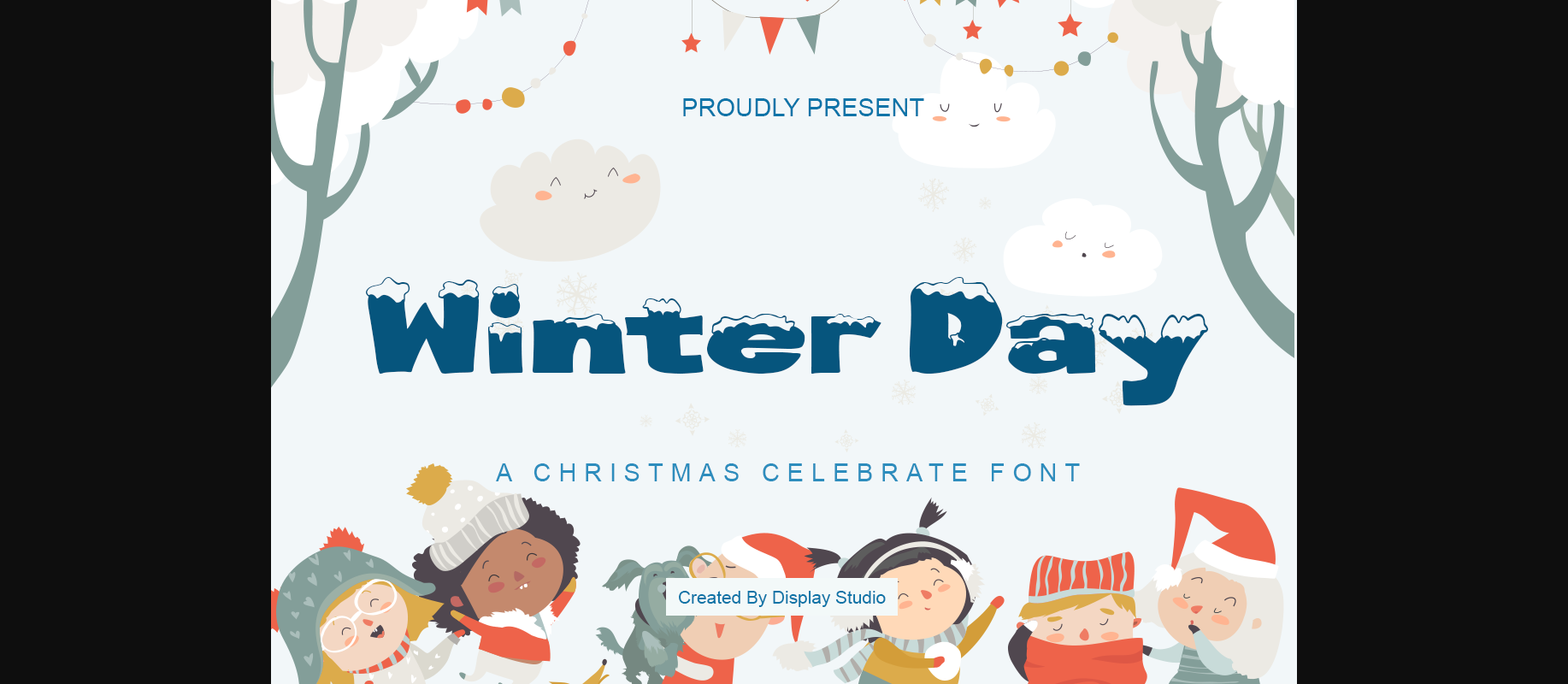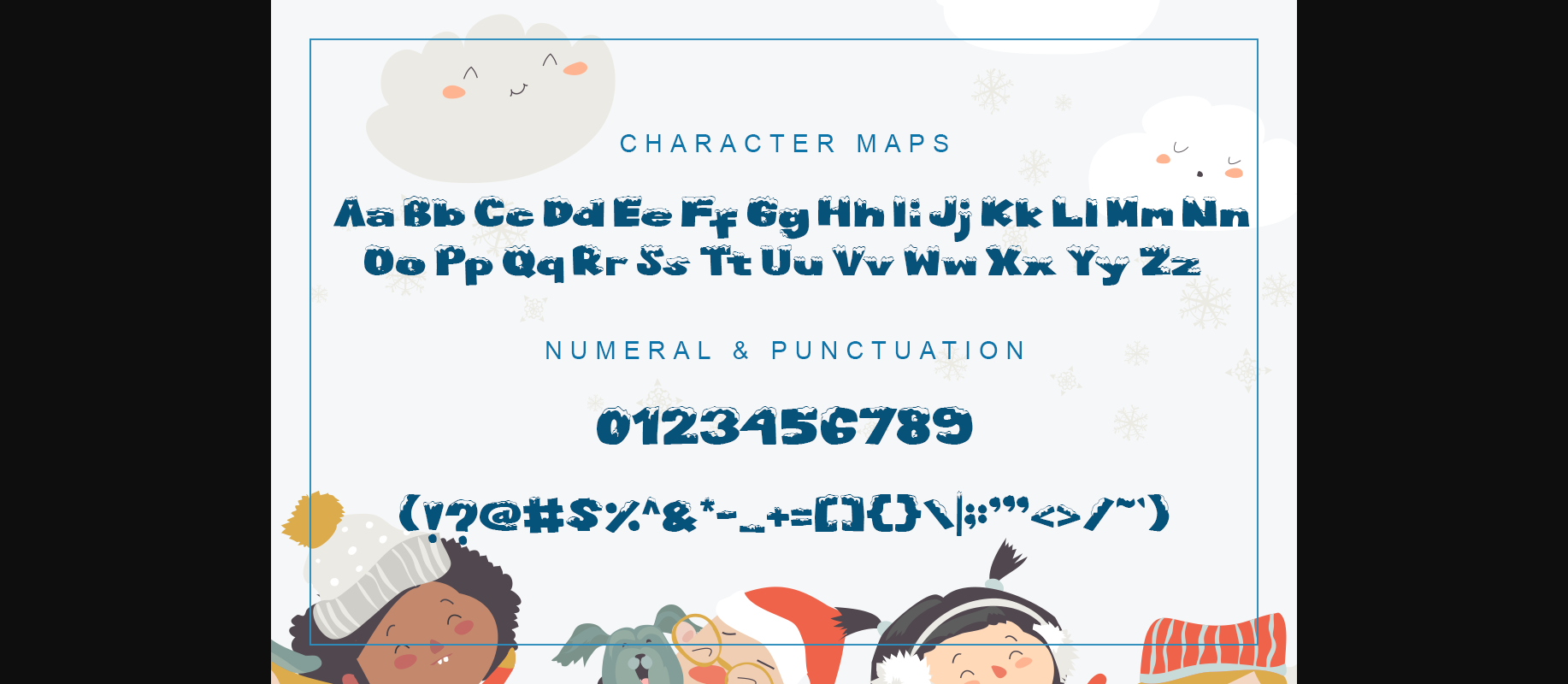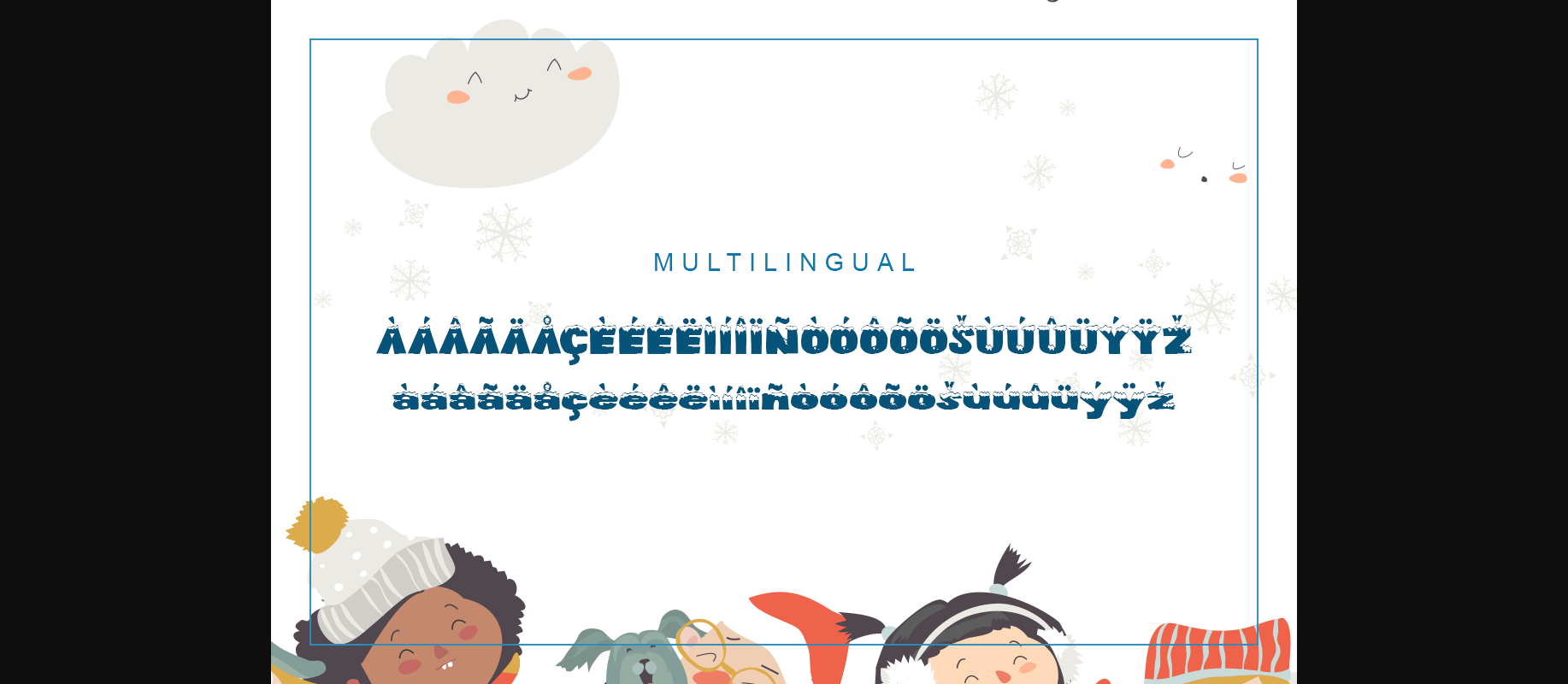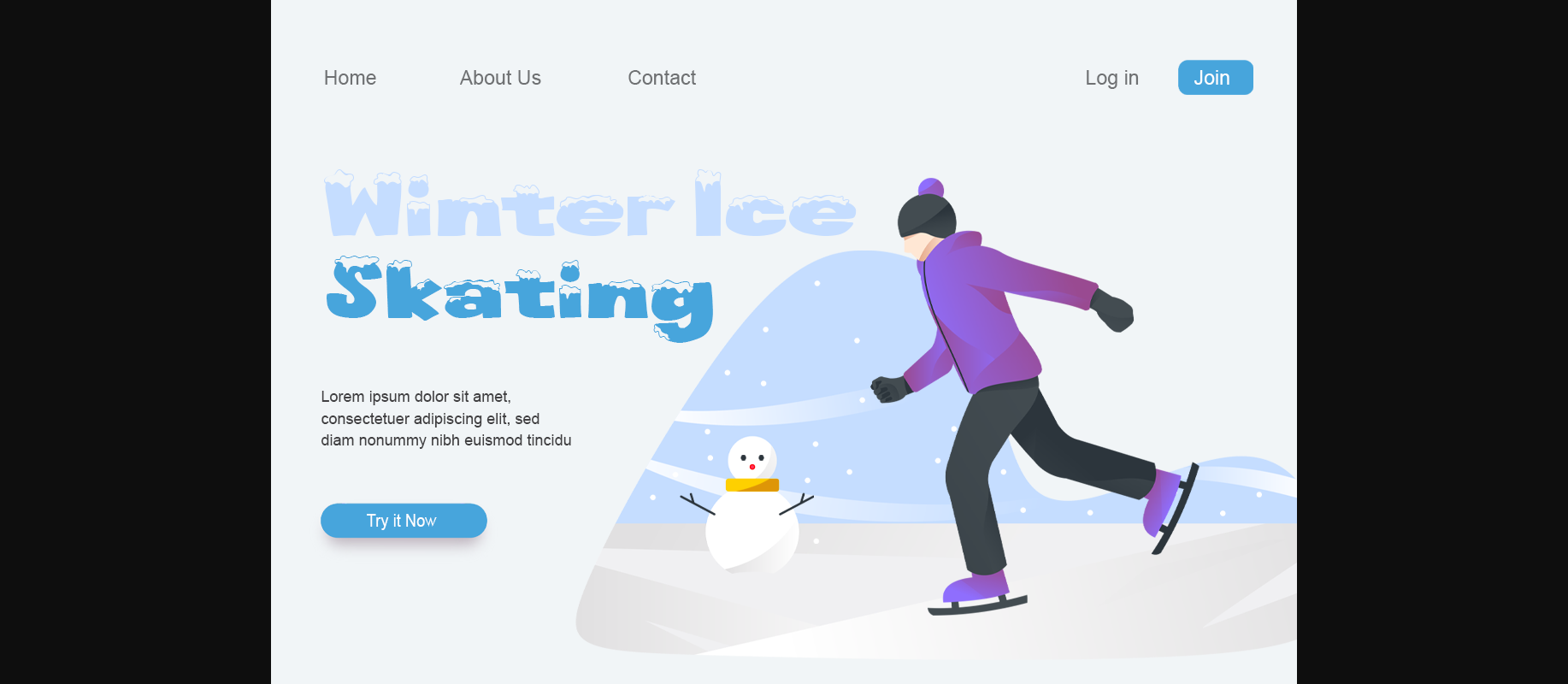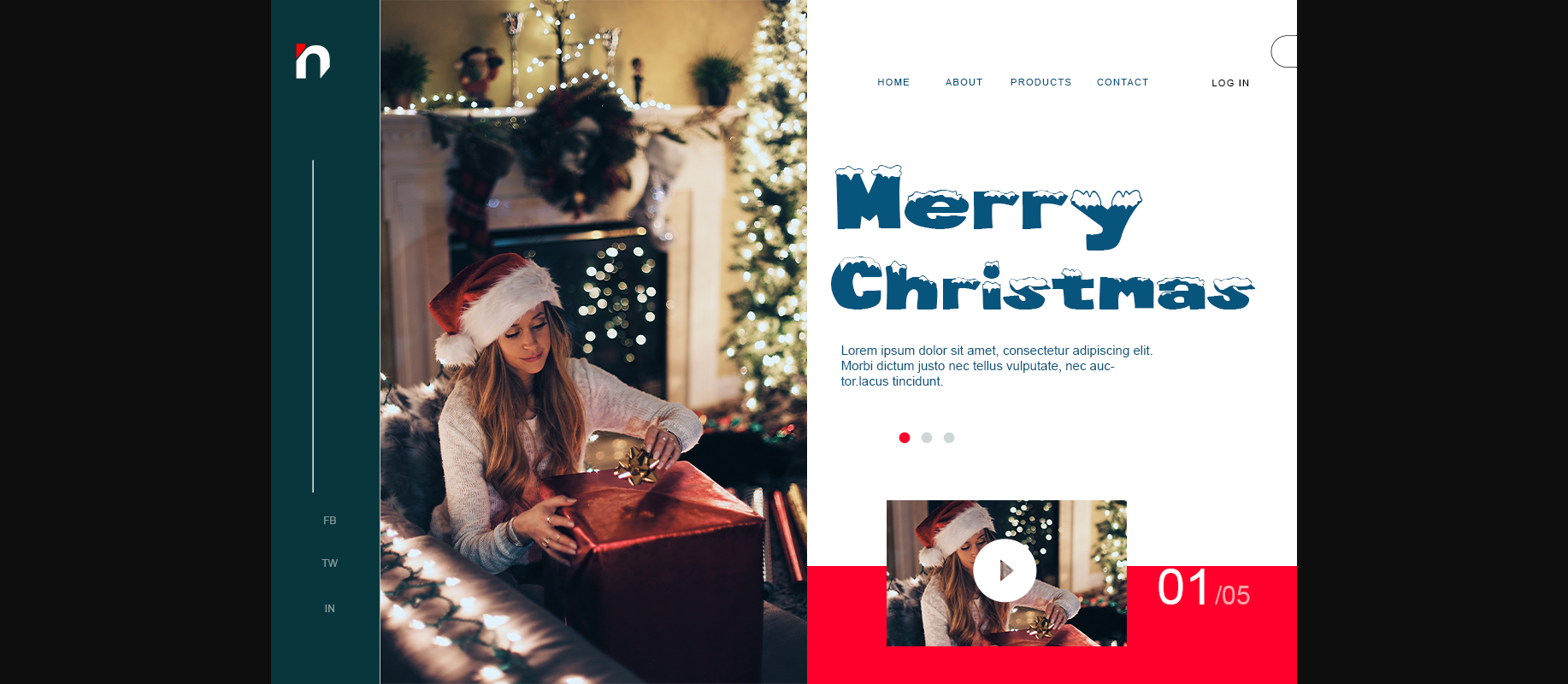
About Winter Day Font
Winter Day is a splendid decorative font, perfect for your upcoming winter projects! It works great for Christmas-related items, gifts, wintery storybooks, covers, frosty product packaging, and many other similar designs.